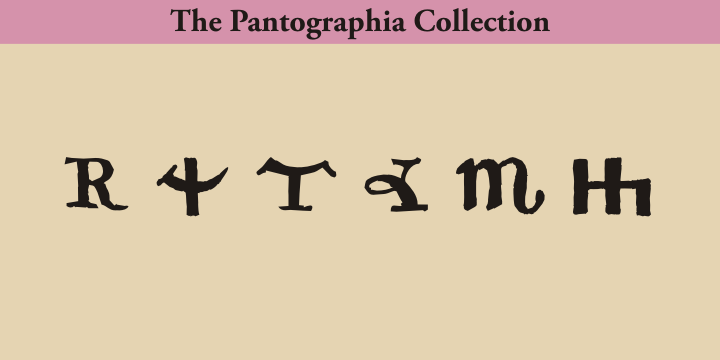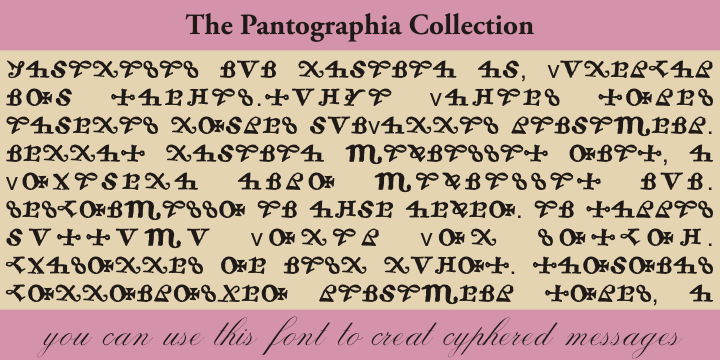
Edmund Fry of United Kingdom
Son of Joseph Fry. Fry was a great scholar; sixteen years of research resulted in Pantographia, a work on languages containing over 200 alphabets. In 1784 he introduced a raised roman letter for the blind, and was awarded a prize by the Edinburgh Society of Arts. (Louis Braille’s system of lines and dots ultimately proved better.) He took over the Fry Letter Foundry with his brother Henry upon their father’s retirement in 1787. He died in 1835. “Pantographia, containing accurate copies of all the known alphabets in the world, together with an English explanation of the peculiar force or power of each letter” is the title of a 1799 work on writing systems and typography by Edmund Fry, one of the most learned of the English typefounders of his day. Fry provided a description of each alphabet on the right-handed, pages with a specimen of the full range of the alphabet on the left. Fry spent sixteen years researching the book, which contains more than 200 specimens, writing systems from Abyssinia to New Zealand, including 20 varieties of Chaldean, 39 of the Greek, 8 Egyptian, 11 Hebrew, 7 Irish, 6 Malayan, 7 Persian, 7 Phoenician, 7 Samaritan, one Tibetan, and 2 Welsh. To which are added, specimens of all well-authenticated oral languages; forming a comprehensive digest of phonology. The original was printed by Cooper and Wilson, for John and Arthur Arch [et al.] London 1799 First edition, 8vo, pp.[4], xxxvi, 320; numerous fonts and languages throughout, many of an exotic nature, including those of Nootka and Prince William Sounds, Virginian, and New Zealand, as well as those of select Pacific Islands and African languages. "The work is dedicated to Sir Joseph Banks. Two copies were printed on vellum. It is preceded by a lengthy preface on the origin of language, the author seeking to establish that alphabets as well as language are of divine origin. The alphabets are arranged in alphabetical order on the left-hand pages, and their renderings are given opposite?" Lowndes describes it as "a highly interesting work, the result of sixteen years' research." Fonts by Edmund FryBrowse all fonts by Edmund Fry Activities |